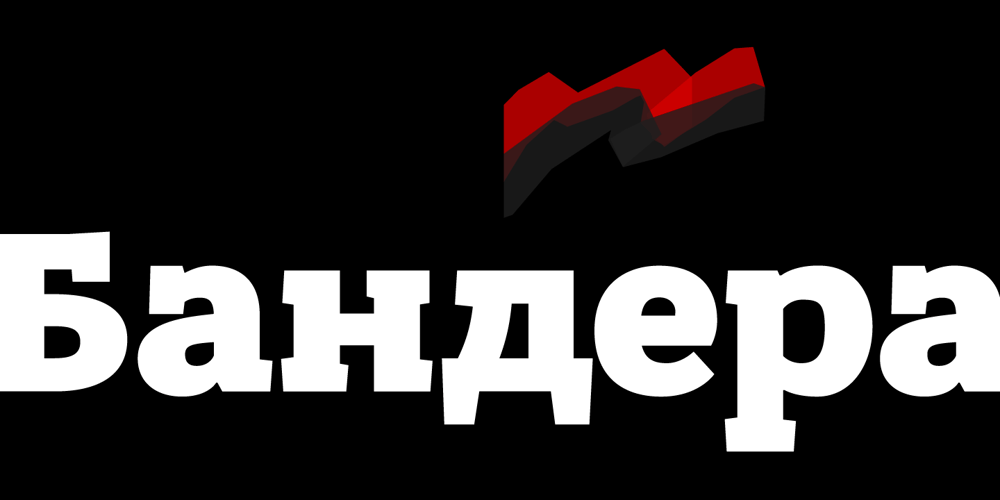
Bandera Cyrillic Font Family was designed by Andrij Shevchenko and published by AndrijType. Bandera Cyrillic contains 12 styles and family package options. This square serif typeface is a real workhorse. It is a modern tool for text design: extremely legible and well shaped. Bandera Cyrillic has six weights with original italics. It catches attention in headlines of posters and magazines or makes reading comfortable in plain texts. Bandera Cyrillic shares main proportions with sans serif Osnova Pro typefamily so ideally can pair it. It has Bandera Cyrillic Text and Bandera Cyrillic Display sister families as well. Please check also Pro verion for pan-european support (full Latin-Greek-Cyrillic). Bandera is Spanish for ‘flag’. And Bandera is a symbol of Ukrainian fighting for freedom for many years.